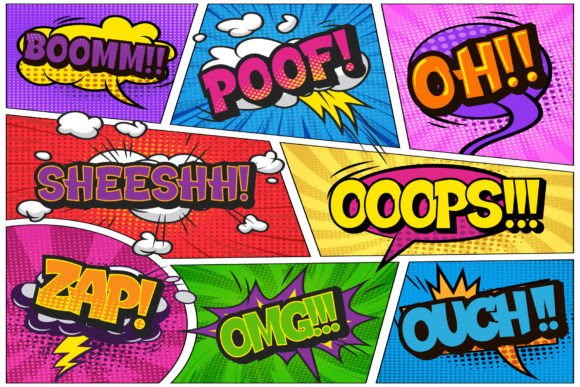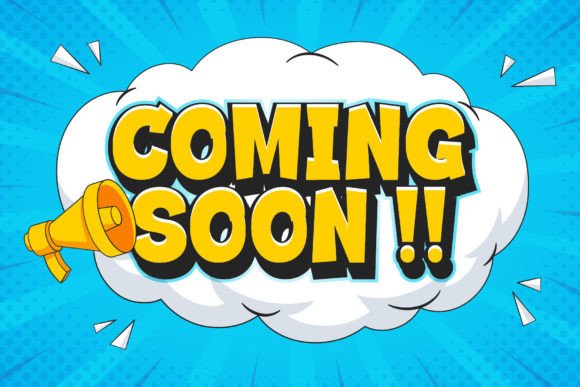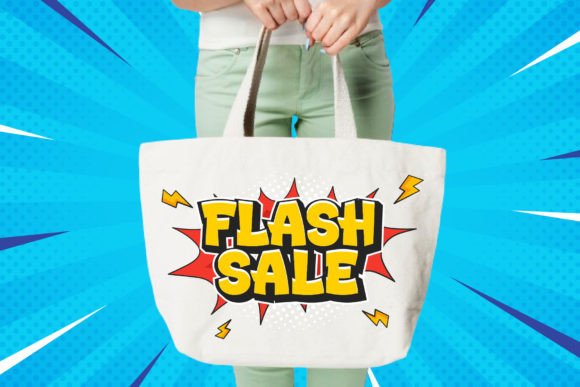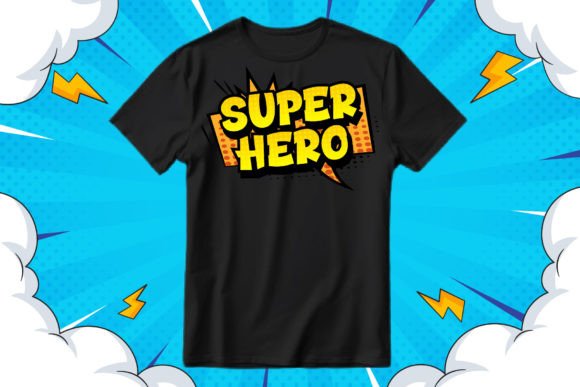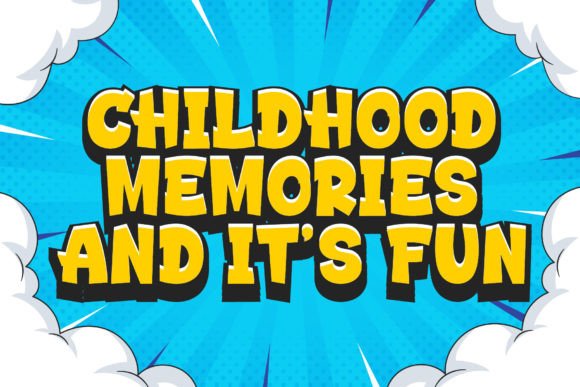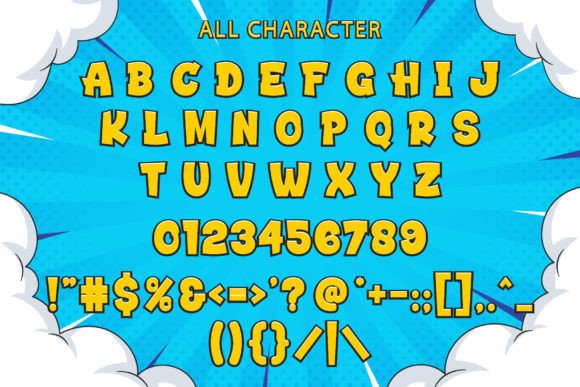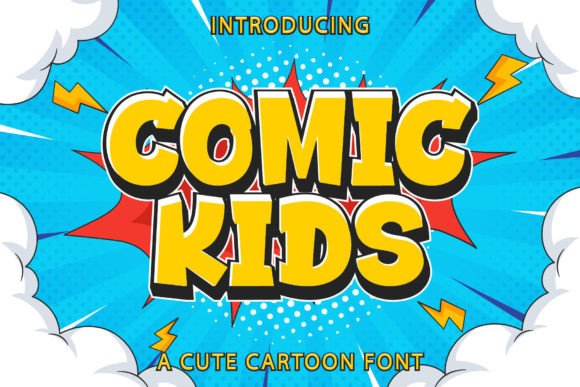
Introducing Comic Kids Font: The Ultimate Display Font for Fun and Creativity
Are you looking for a font that can add a touch of fun and playfulness to your designs? Look no further than Comic Kids Font! This thick lettered display font is perfect for delivering messages with confidence, authenticity, and charm. In this article, we’ll explore the features and benefits of Comic Kids Font, and how it can be used to elevate your designs.
What is Comic Kids Font?
Comic Kids Font is a fun and vibrant display font that is designed to bring a smile to your audience’s face. Its thick letters and playful vibe make it perfect for use in a variety of applications, from cartoons and magazine covers to games and more. Whether you’re a designer, crafter, or DIY enthusiast, Comic Kids Font is a great addition to your font library.
Key Features of Comic Kids Font
- Thick Lettered Design: Comic Kids Font features thick, bold letters that are perfect for making a statement.
- Fun and Playful Vibe: The font’s playful design makes it perfect for use in fun and creative applications.
- High Versatility: Comic Kids Font can be used in a variety of applications, from digital designs to print materials.
- Easy to Read: Despite its playful design, Comic Kids Font is easy to read, making it perfect for use in headlines and titles.
Benefits of Using Comic Kids Font
So why should you use Comic Kids Font in your designs? Here are just a few benefits:
- Adds a Touch of Fun: Comic Kids Font adds a touch of fun and playfulness to your designs, making them more engaging and attention-grabbing.
- Perfect for Kids and Adults Alike: The font’s playful design makes it perfect for use in designs aimed at kids, while its bold letters make it suitable for use in designs aimed at adults.
- Increases Creativity: Comic Kids Font’s unique design can help inspire creativity and add a fresh touch to your designs.
- Easy to Pair with Other Fonts: The font’s bold design makes it easy to pair with other fonts, allowing you to create unique and interesting typography combinations.
Use Cases for Comic Kids Font
So what can you use Comic Kids Font for? Here are just a few ideas:
- Cartoons and Animations: Comic Kids Font is perfect for use in cartoons and animations, adding a fun and playful touch to your characters and titles.
- Magazine Covers: The font’s bold design makes it perfect for use in magazine covers, grabbing the attention of potential readers and adding a touch of fun to your publication.
- Games: Comic Kids Font can be used in games to add a touch of fun and playfulness to your UI and marketing materials.
- Crafting and DIY Projects: The font’s playful design makes it perfect for use in crafting and DIY projects, such as making signs, banners, and other decorative items.
Tips for Using Comic Kids Font
Here are a few tips for getting the most out of Comic Kids Font:
- Use it as a Display Font: Comic Kids Font is designed to be used as a display font, so use it to grab attention and make a statement.
- Experiment with Colors: The font’s bold design makes it perfect for use with bright and bold colors, so don’t be afraid to experiment and find the perfect color combination for your design.
- Pair it with Other Fonts: Comic Kids Font can be paired with other fonts to create interesting and unique typography combinations, so don’t be afraid to experiment and find the perfect pairing for your design.
Comic Kids Font is a fun and versatile display font that is perfect for adding a touch of playfulness and fun to your designs. With its thick lettered design, playful vibe, and high versatility, it’s perfect for use in a variety of applications, from cartoons and magazine covers to games and crafting projects. So why not give Comic Kids Font a try and see how it can elevate your designs?